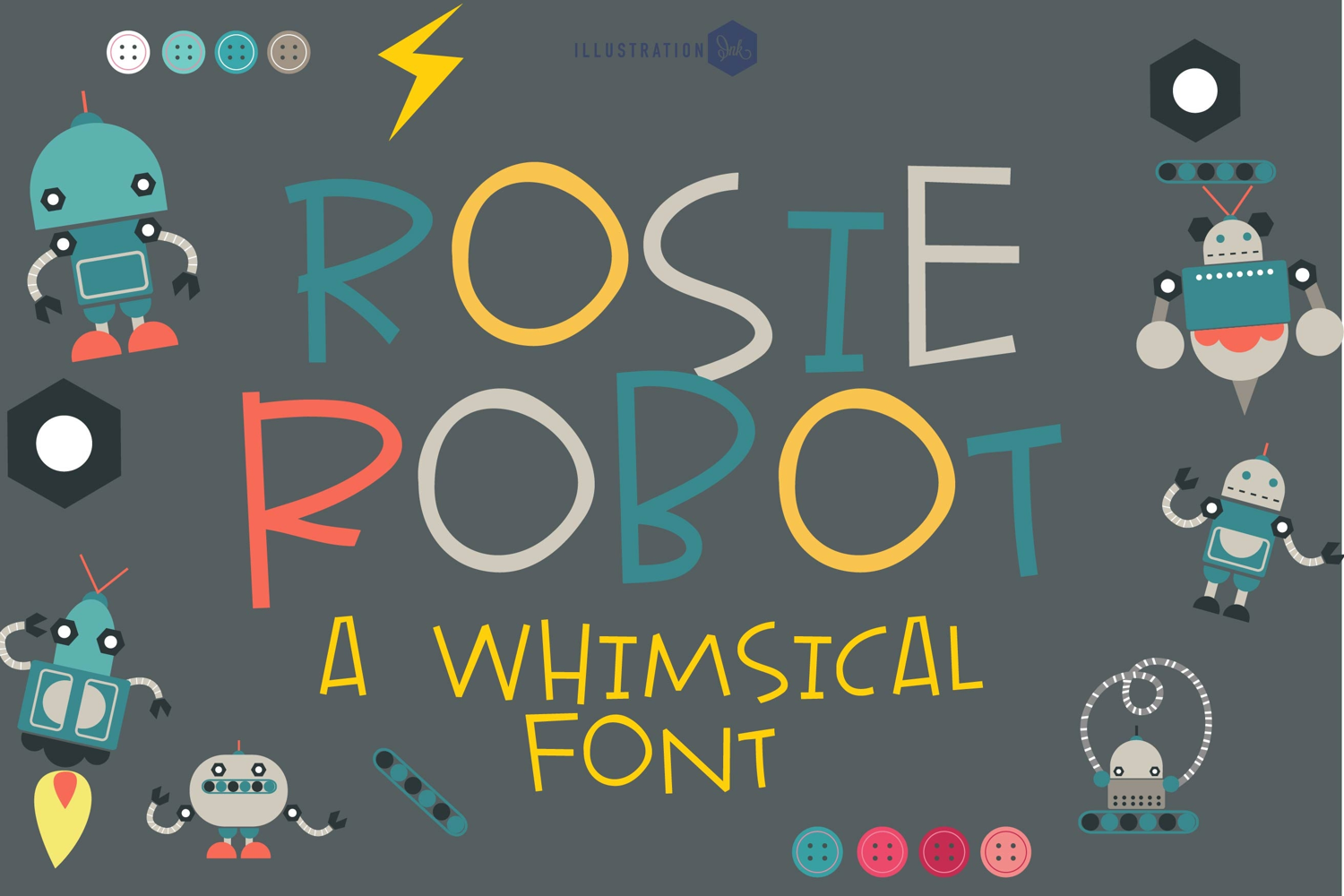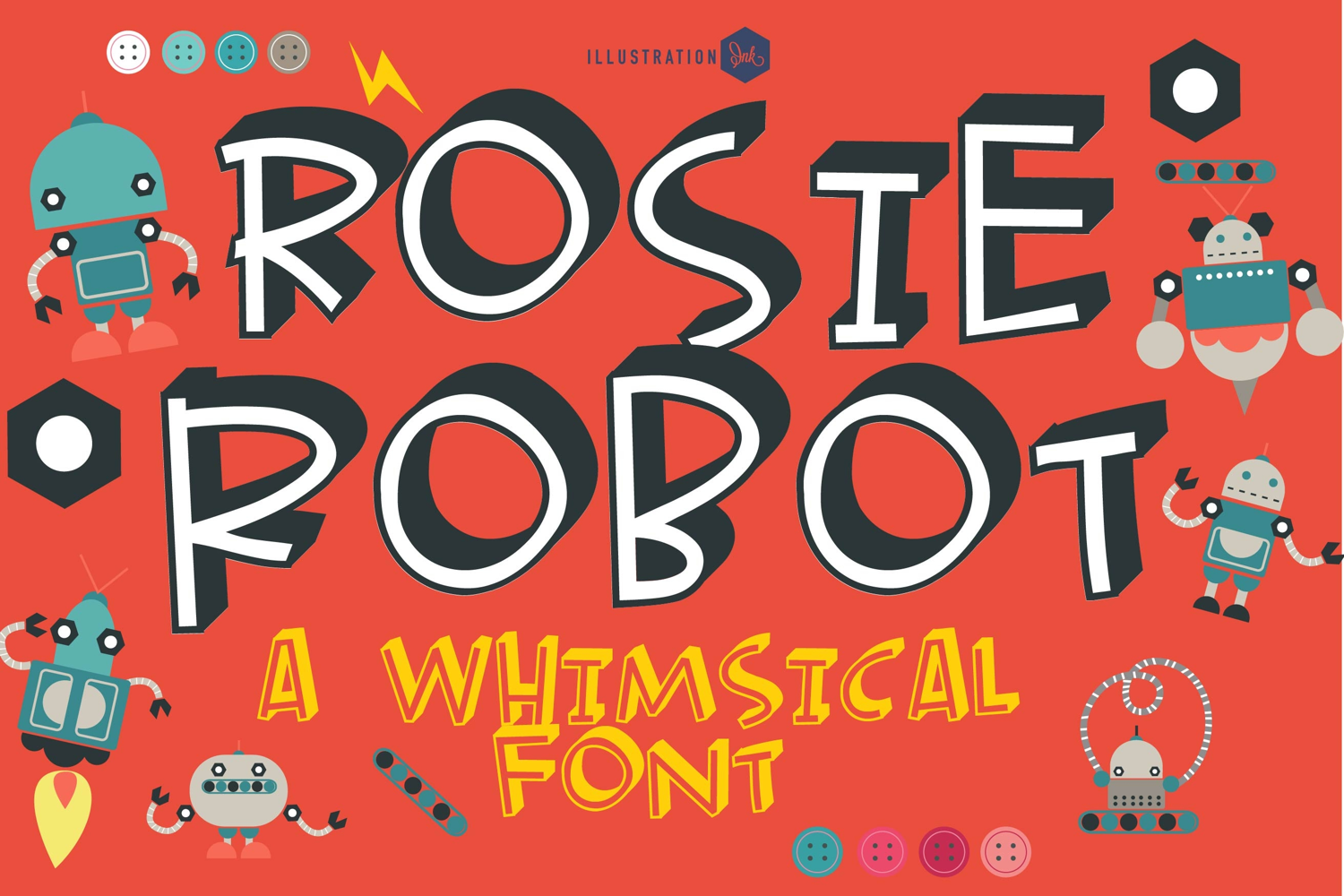
Rosie Robot Font Family
This hand-crafted font is a whimsical, youthful hand-written print.
• The letters are not perfectly uniform in size or shape.
• There may be slight variations in the spacing between letters and words.
• The font may have a "wiggly" or "squiggly" appearance.
• The font may be difficult to read at small sizes.